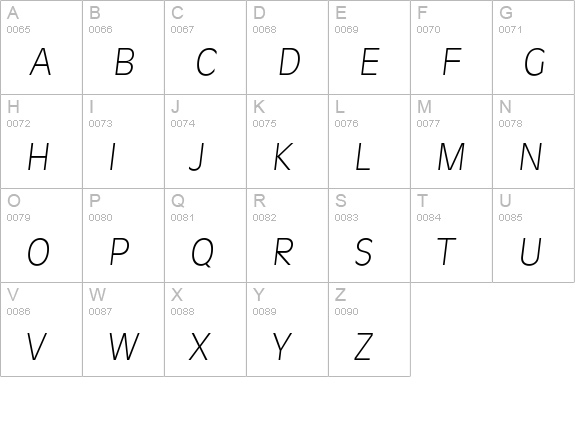
Ravenna-XlightIta Font Details
Ravenna-XlightIta is a stunning font that effortlessly combines elegance with a touch of modernity. This beautiful typeface is perfect for adding a sophisticated and refined feel to any design project. Its delicate and graceful letterforms create a harmonious and captivating visual experience. The XlightIta variant of Ravenna showcases a lighter weight and italicized style, providing a unique and distinctive look that is both versatile and eye-catching. Whether used for headlines, logos, or body text, this font adds a touch of class and professionalism to any design. One of the best features of Ravenna-XlightIta is that it is completely free. Yes, you read that right - this amazing font is freely available to download at FontsMarket.com. This means that you can enhance your designs without breaking the bank. It's the perfect choice for designers, creatives, and anyone looking to add a touch of elegance to their projects. With its seamless legibility and exquisite details, Ravenna-XlightIta is a font that is sure to make a lasting impression. Its timeless appeal and versatility make it suitable for a wide range of applications, from wedding invitations to branding materials. So why wait? Download Ravenna-XlightIta for free at FontsMarket.com and unlock a world of possibilities for your design projects. Embrace the beauty and sophistication of this font and let it elevate your designs to new heights.